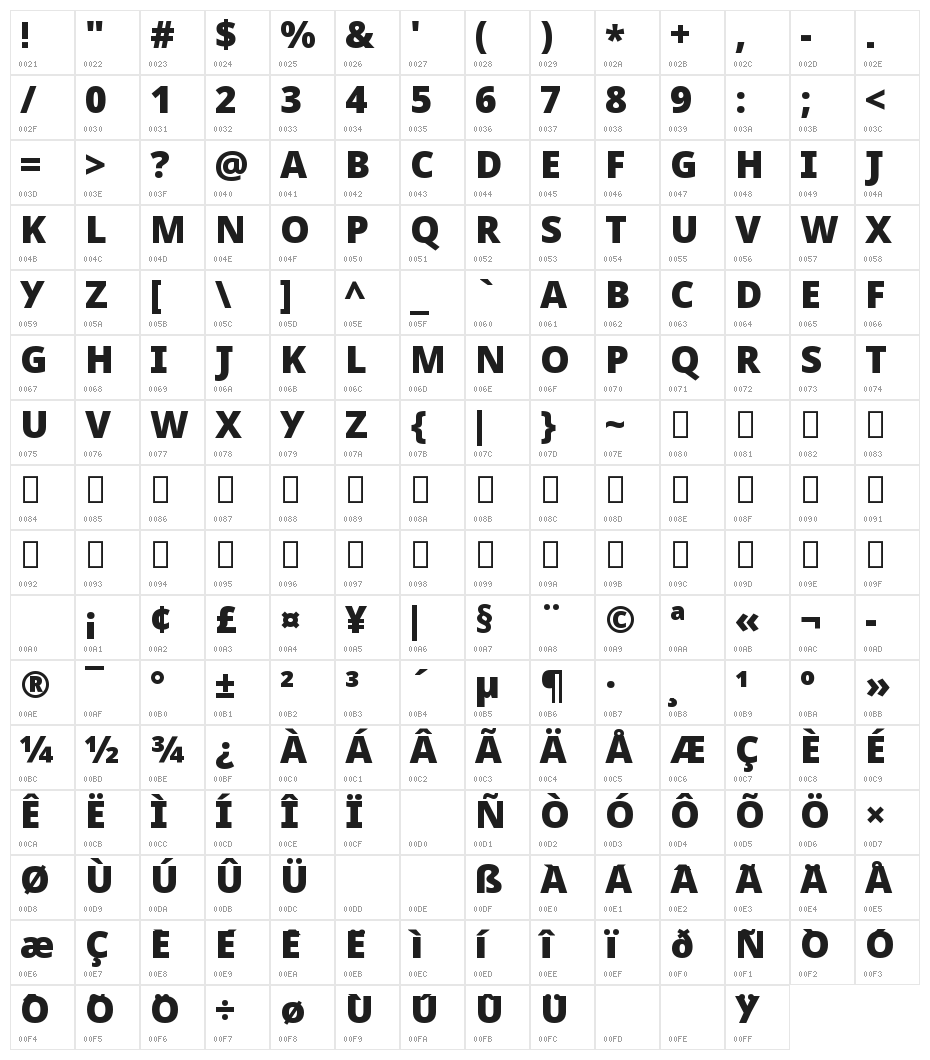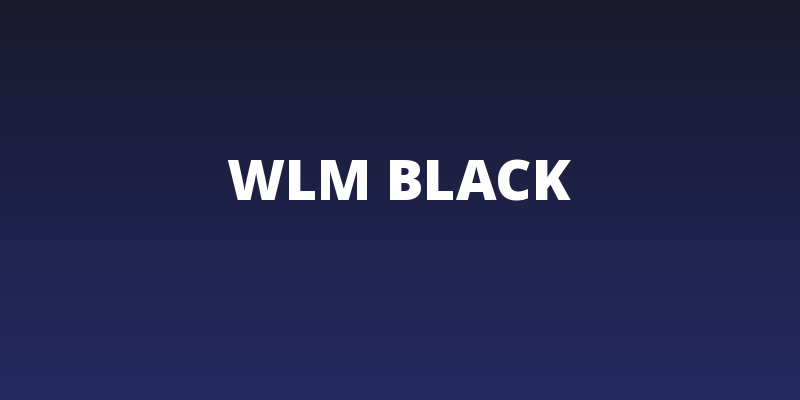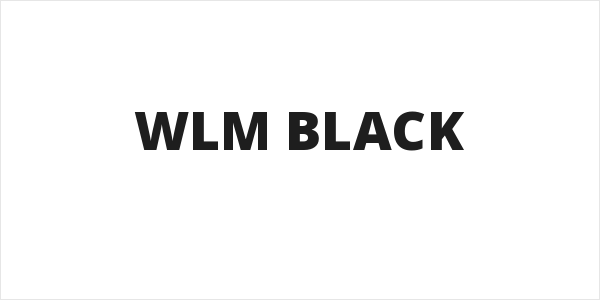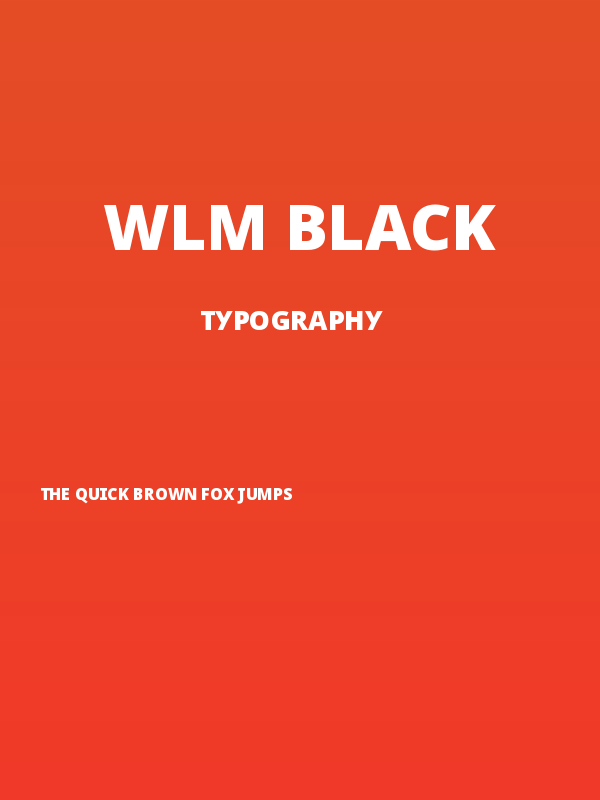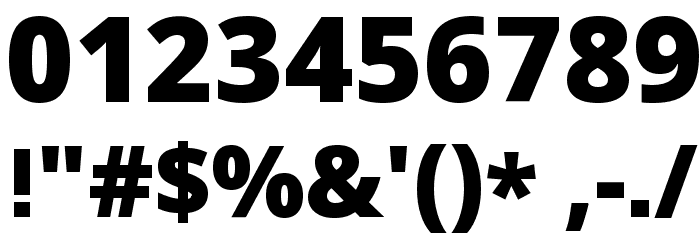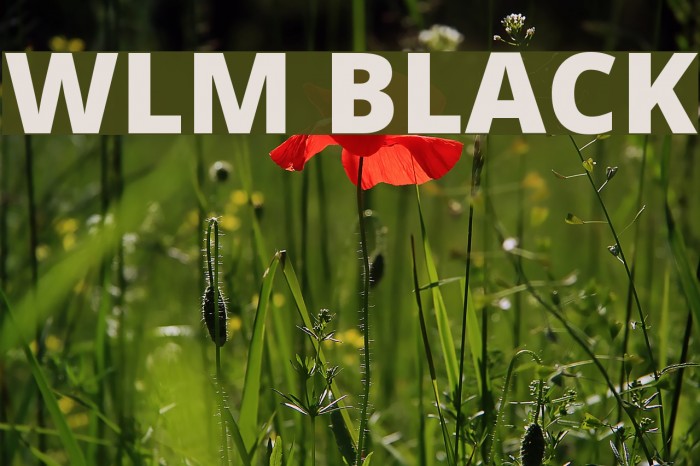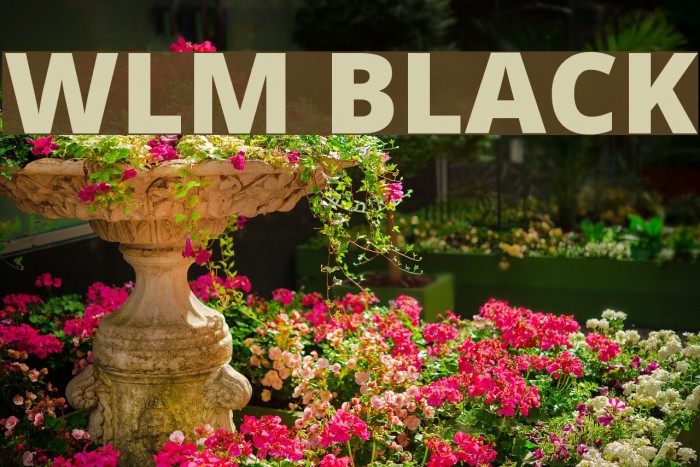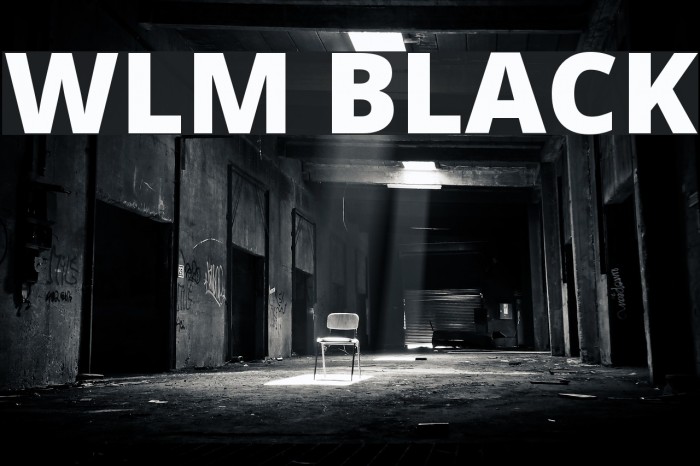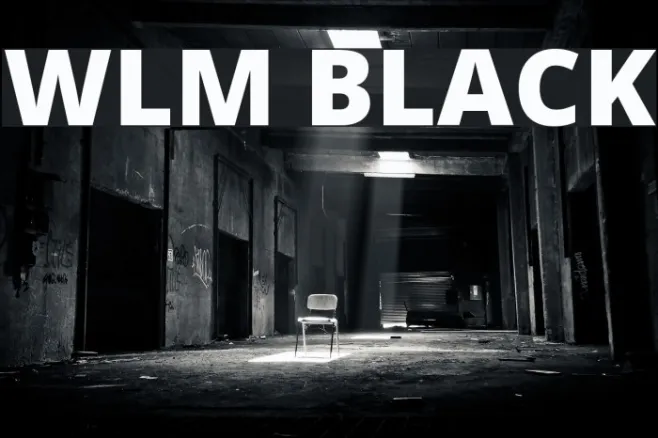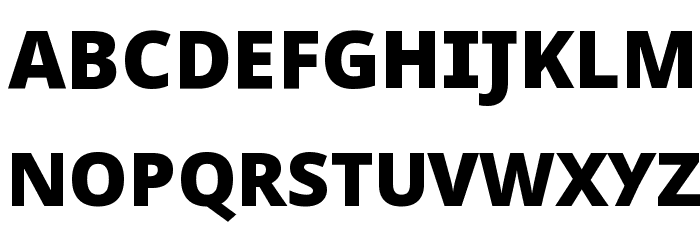
WLM Black Font
WLM Black Description
This font is a bold and impactful typeface characterized by its thick, strong lines and solid structure. It features uppercase and lowercase letters, numerals, and a variety of special characters. The design is clean and modern, with a focus on readability and presence. The characters are evenly spaced, providing a balanced and cohesive look. This typeface is ideal for making a statement, with its high contrast and substantial weight ensuring that it stands out in any context.
| Proposed Projects | Ideal for headlines, posters, branding, and any project requiring a strong visual impact. |